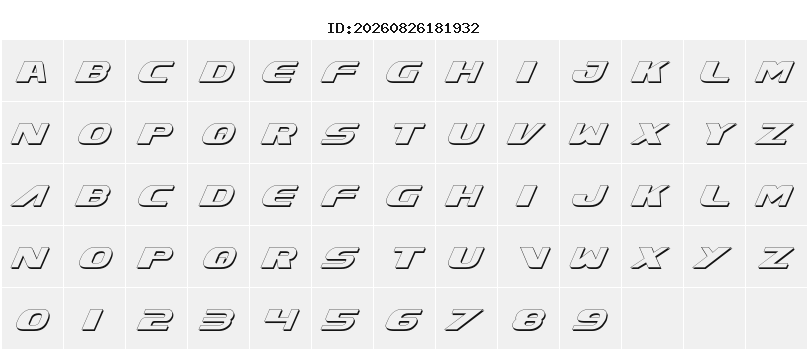
Xcelsion Shadow Italic Preview
• Font Name: Xcelsion Shadow Italic
• Font Style: Shadow Italic
• Font ID: Xcelsion Shadow Italic
• Full Font Name: Xcelsion Shadow Italic
• Version: Version 3.0; 2003
• PostScript Name: XcelsionShadowItalic
About Xcelsion Shadow Italic.ttf
Xcelsion Shadow Italic.ttf is a modern, elegant sans-serif font designed for ultimate readability and visual harmony. Perfect for branding, headlines, web design, and print materials.